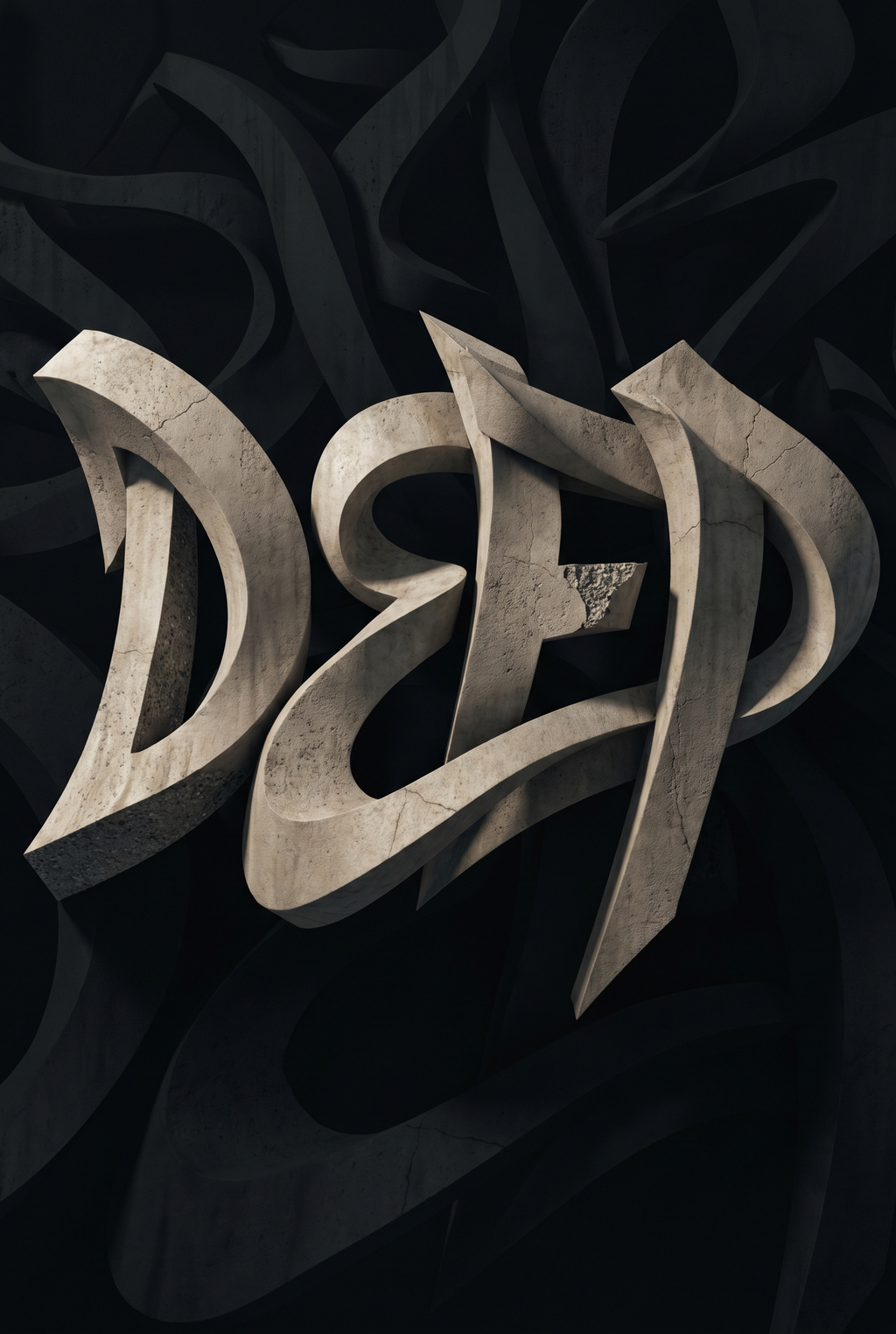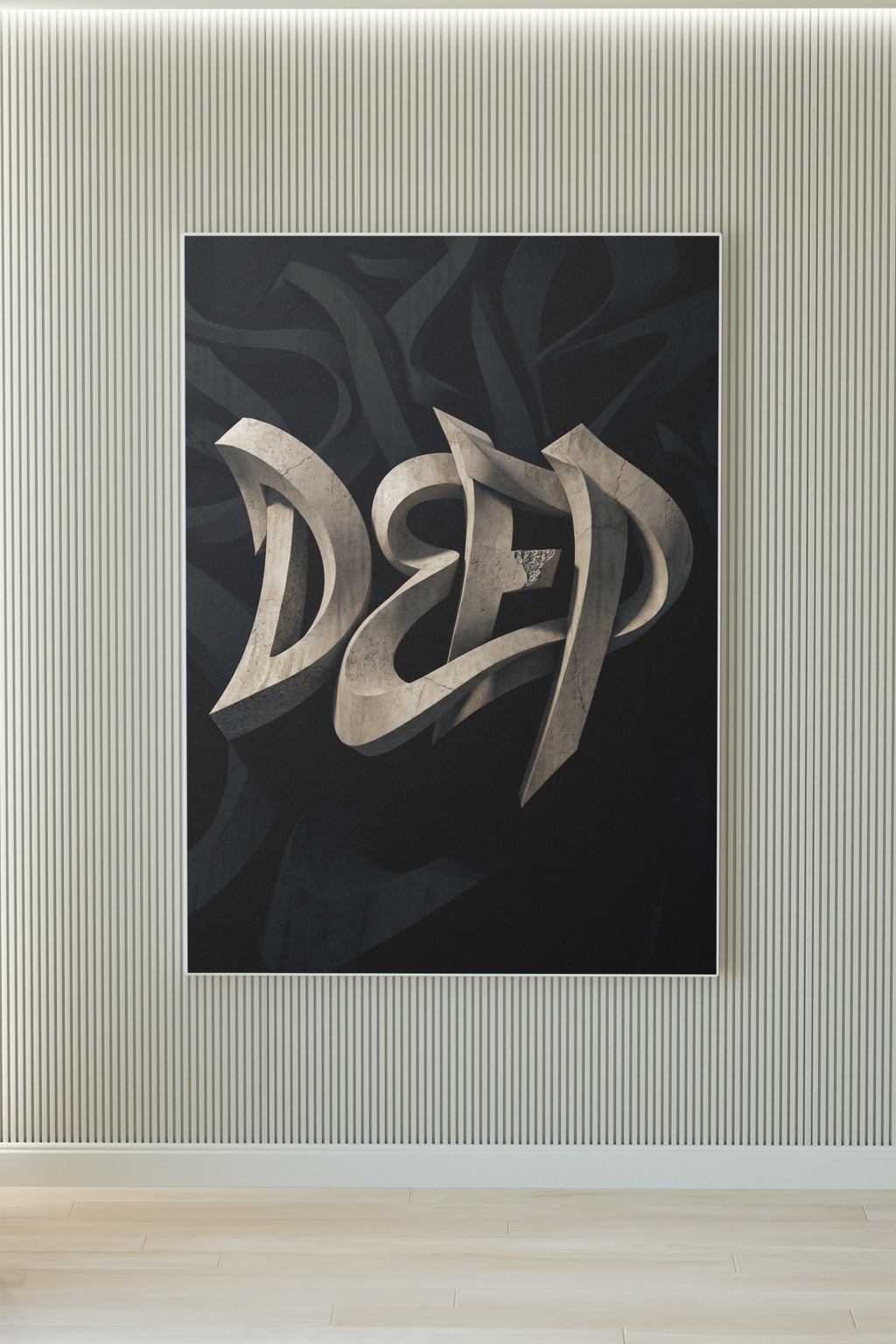
DEEP
3D concrete lettering poster (61 × 91 cm) — sculptural, stone-textured typography set against a dark, subtle calligraphic background; minimalist, dramatic, and perfect for contemporary interiors, offices, or galleries.